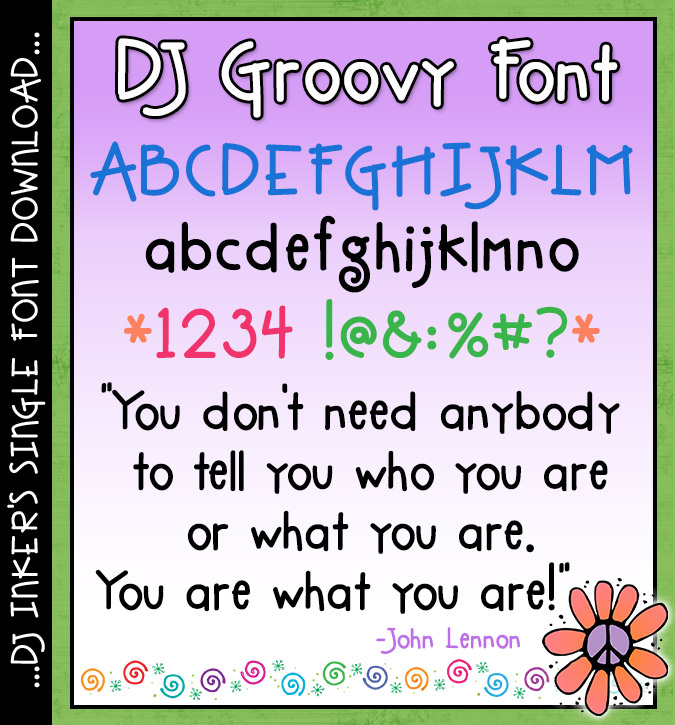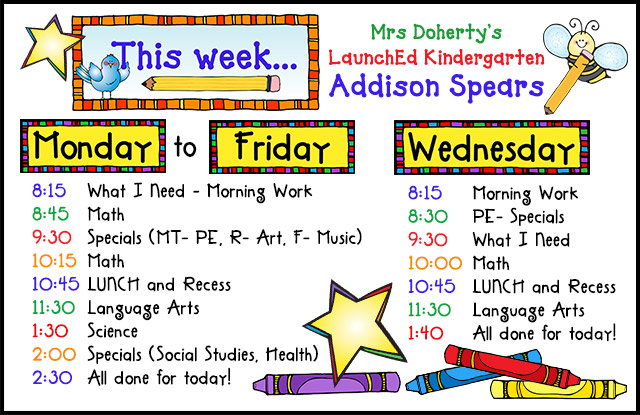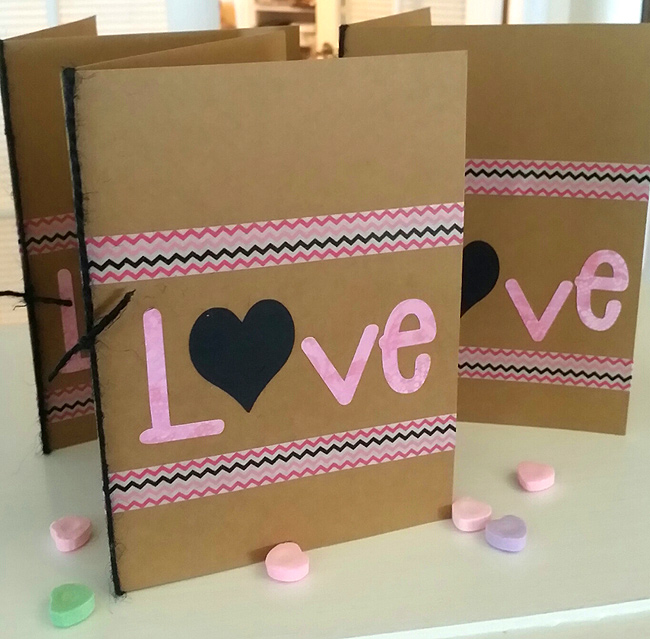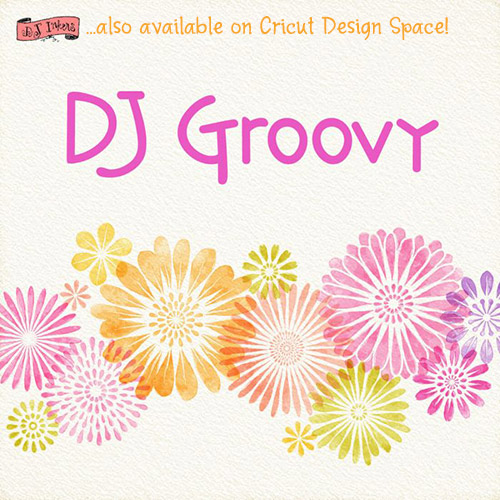
This cool & laid-back lettering is sure to make your projects look
DJ Groovy! This versatile font is simple & strong with playful touch
that's perfect for any project. Feelin' groovy? Buy this font today &
type up a smile for home, school, work or just for fun.